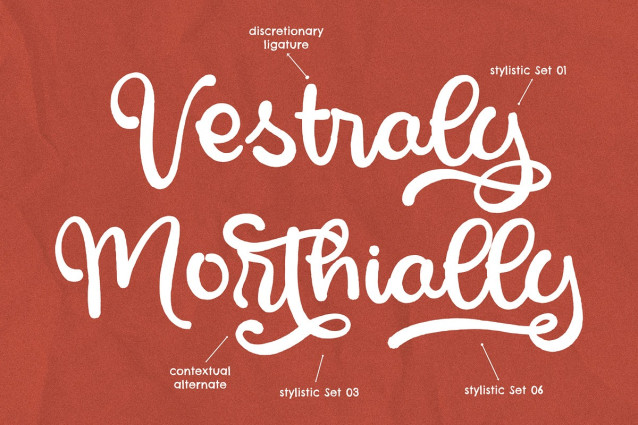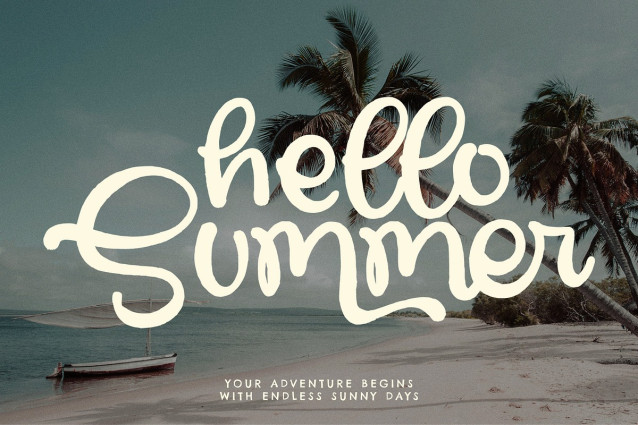
Vierra Adagio Font
Vierra Andagio Font is a playful handwriting script font inspired by retro signage and vintage letterforms. Its casual yet expressive strokes bring a nostalgic charm while maintaining legibility. With a rich collection of ligatures and alternates, this font is perfect for branding projects, packaging, logos, quotes, and creative typography that seeks to combine personality with elegance. Its smooth curves and dynamic rhythm make it feel handcrafted, authentic, and full of warmth—ideal for lifestyle brands, fashion, or café identities.